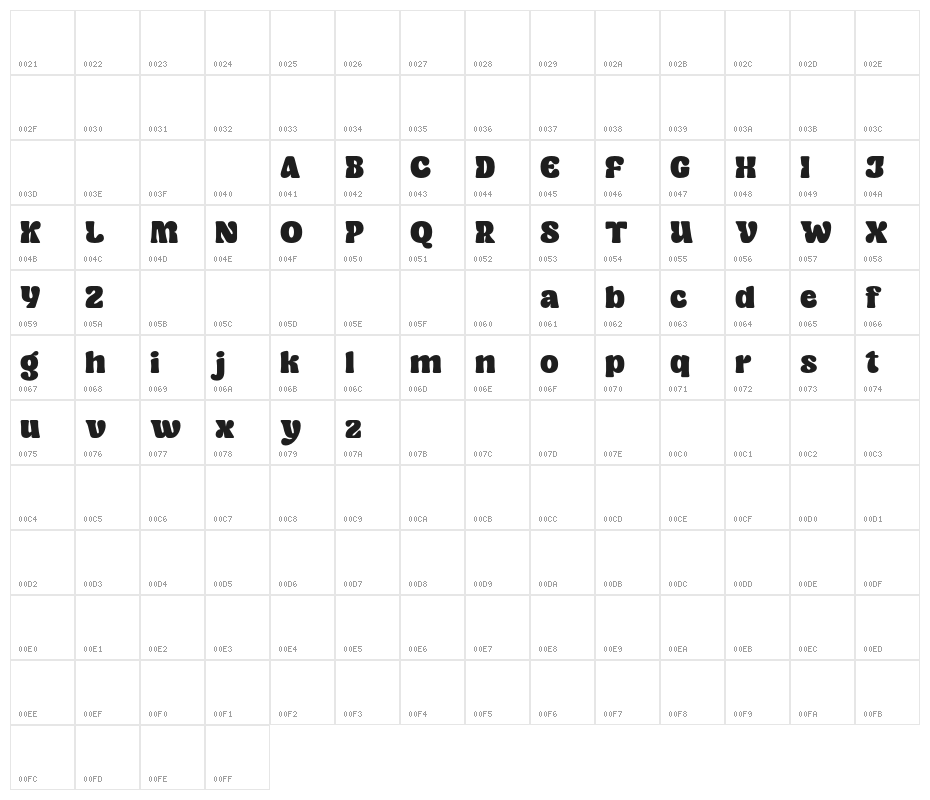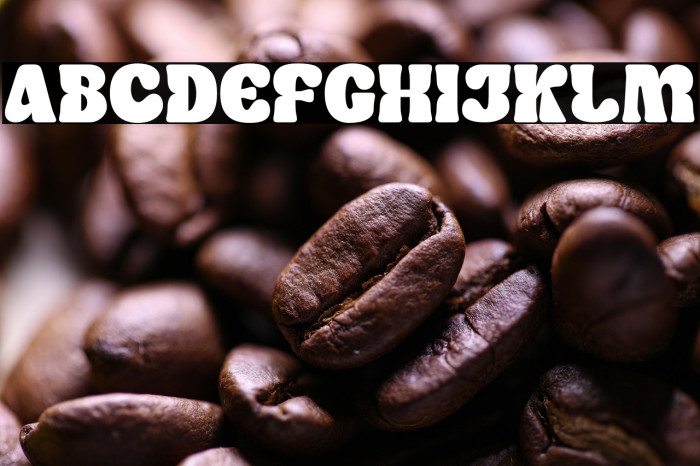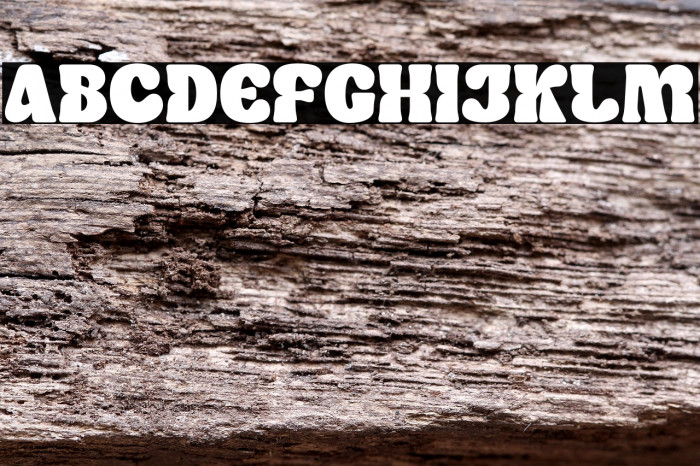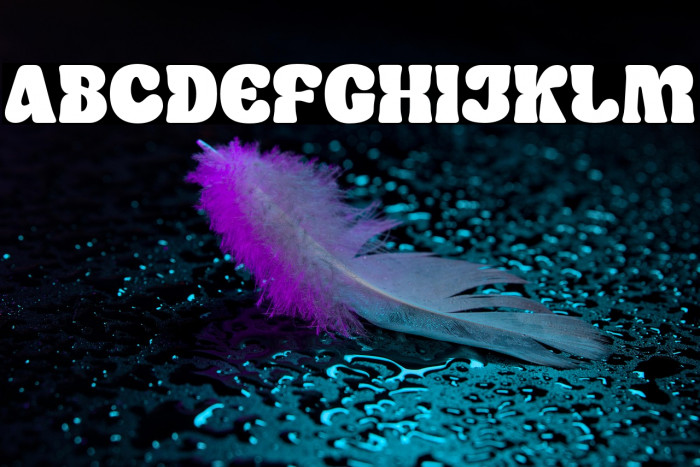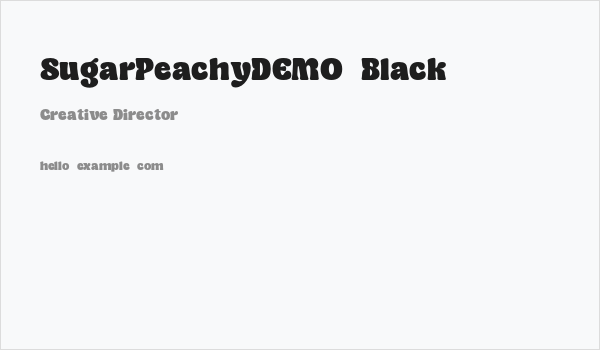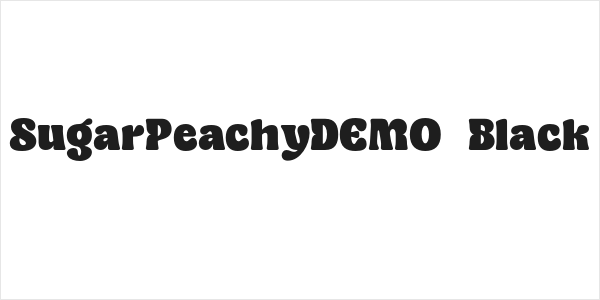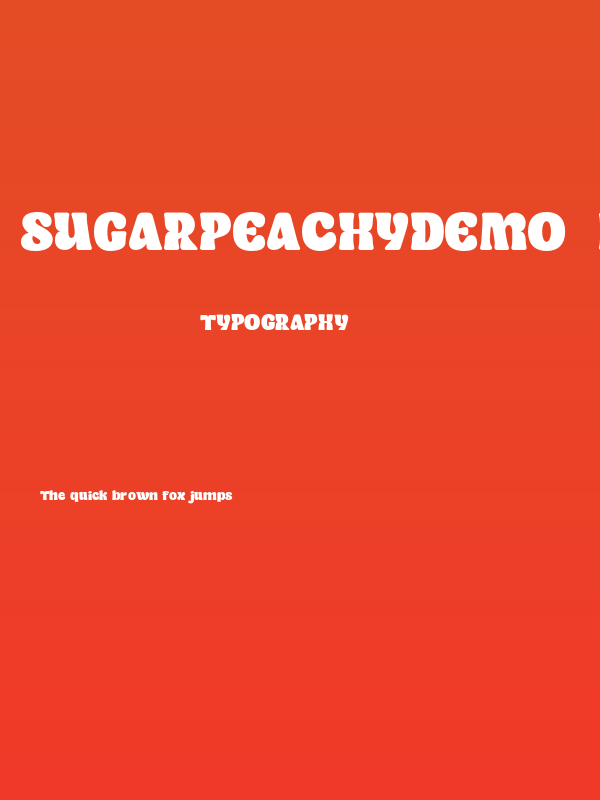
SugarPeachyDEMO-Black Font
SugarPeachyDEMO-Black Description
This font features a bold and playful design with thick, rounded strokes that give it a whimsical and friendly appearance. The characters are uniformly bold, with a consistent weight throughout, creating a strong visual impact. The rounded edges and slightly exaggerated curves add a touch of fun and approachability, making it suitable for informal and creative projects. The font maintains a consistent width, ensuring readability while still offering a unique style. Its decorative nature makes it ideal for headlines, posters, and branding that aim to convey a sense of joy and creativity.
| Overall Style | Playful, Whimsical, Decorative |
| Use Case | Headlines, Posters, Branding |
| Proposed Projects | Ideal for children's books, playful branding, posters, and creative headlines. |